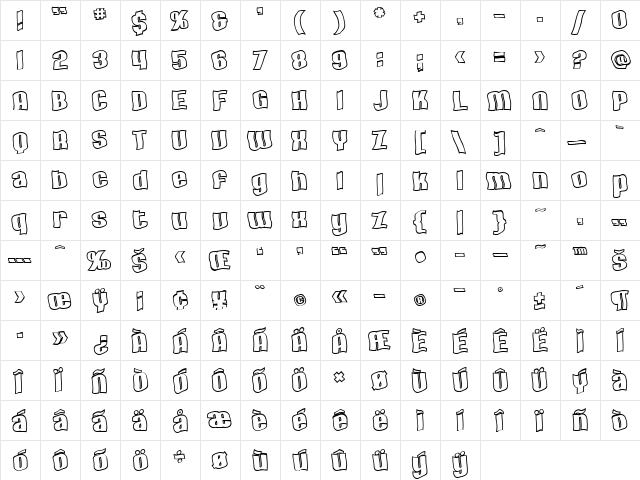
SF Hallucination Outline Regular
Design Context for SF Hallucination Outline Typeface
SF Hallucination Outline brings ornamental detail and strong personality to headlines and identities, where visual impact matters more than quiet functionality.
Font Pairing: Pair with a clean neutral sans-serif for body copy to let SF Hallucination Outline's character lead without overwhelming the composition.
Pro Tip: Use SF Hallucination Outline exclusively at display sizes — it was designed to be seen, not read at length. Let a neutral companion handle body copy.